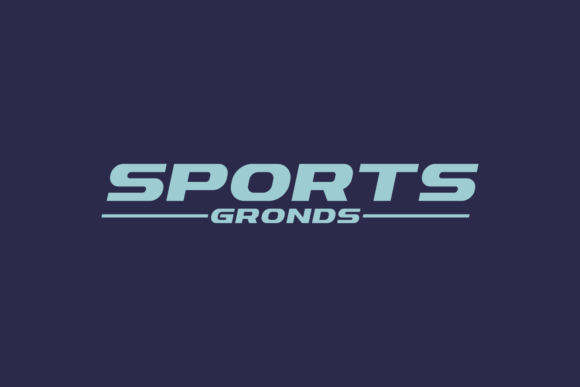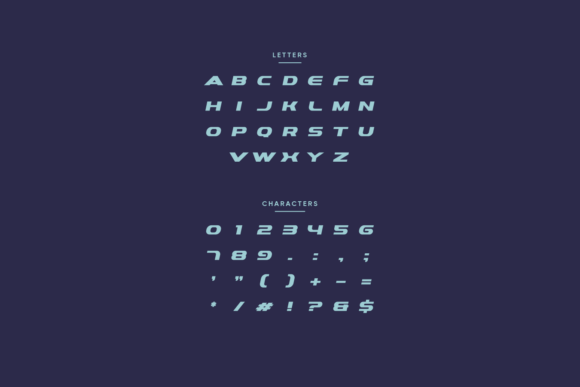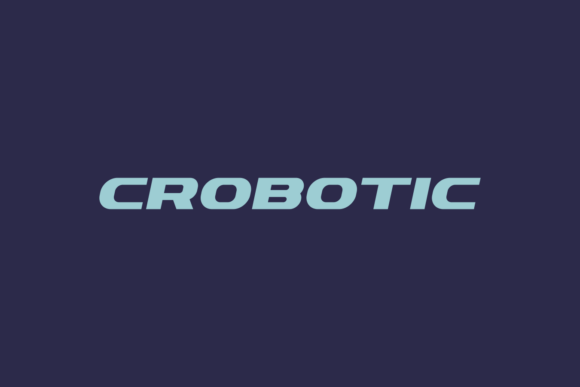
Introduction to Rockpro Font Font
Fonts play a crucial role in design, and the Rockpro Font font is a typeface that brings both character and versatility to any project. Whether you’re working on a branding project, a website, or a print design, the Rockpro Font font offers a unique style that can elevate your work.
**Rockpro** is a modern display font built specifically for sports branding, with a minimalist and elegant style.
This font comes with a sophisticated, modern, and fresh all-caps style, making it more timeless **Rockpro** will make your design more memorable, itβs perfect for adding this font for logo, branding, poster, magazine, digital ads, tech, action sports, and future themes.
Key Features of Rockpro Font Font
Why Choose Rockpro Font Font?
The Rockpro Font font is more than just a typeface β it’s a design tool that helps you communicate your message with style and clarity. Its unique character set and versatile design make it suitable for a wide range of applications, from elegant invitations to bold headlines.
With its carefully crafted letterforms and balanced proportions, the Rockpro Font font ensures readability and visual appeal across all mediums.
What makes Rockpro Font font special?
The Rockpro Font font stands out with its unique design, exceptional readability, and versatility across various design applications.